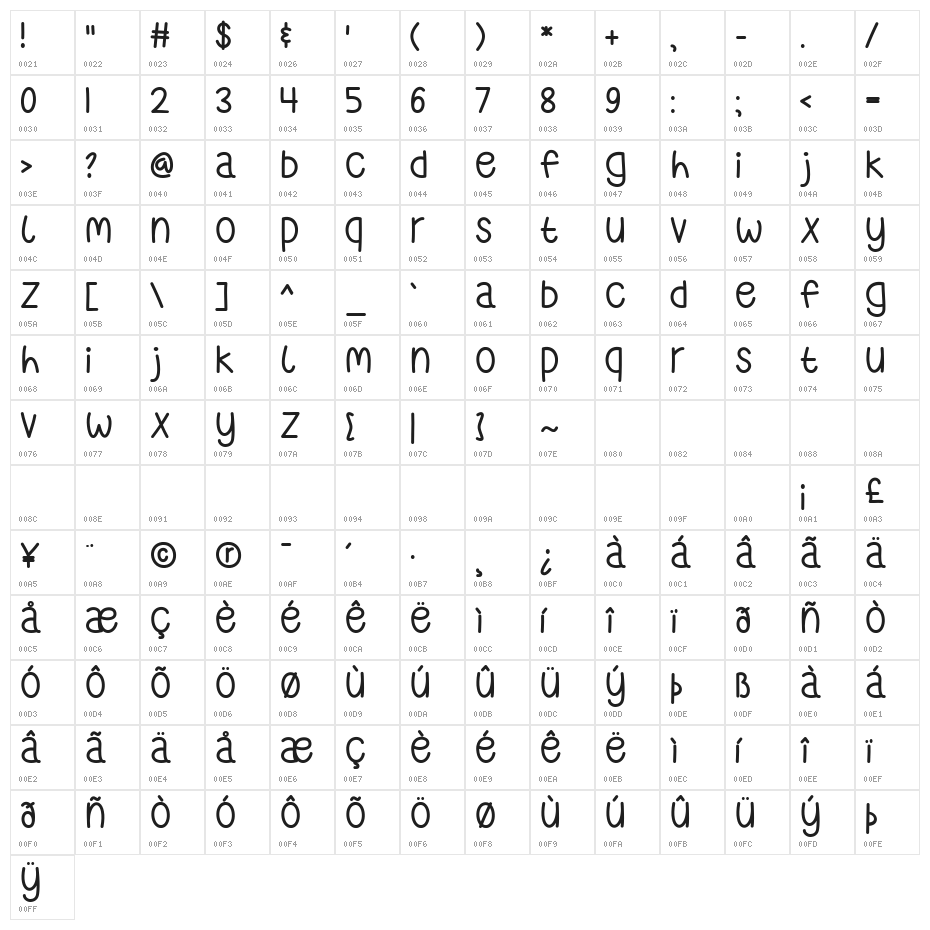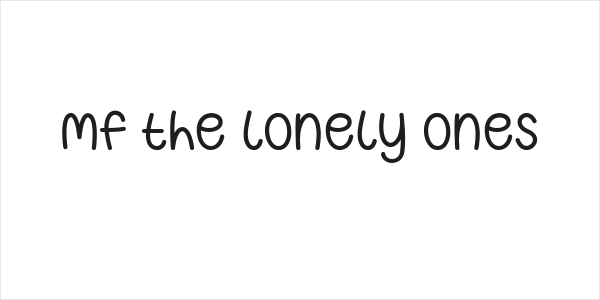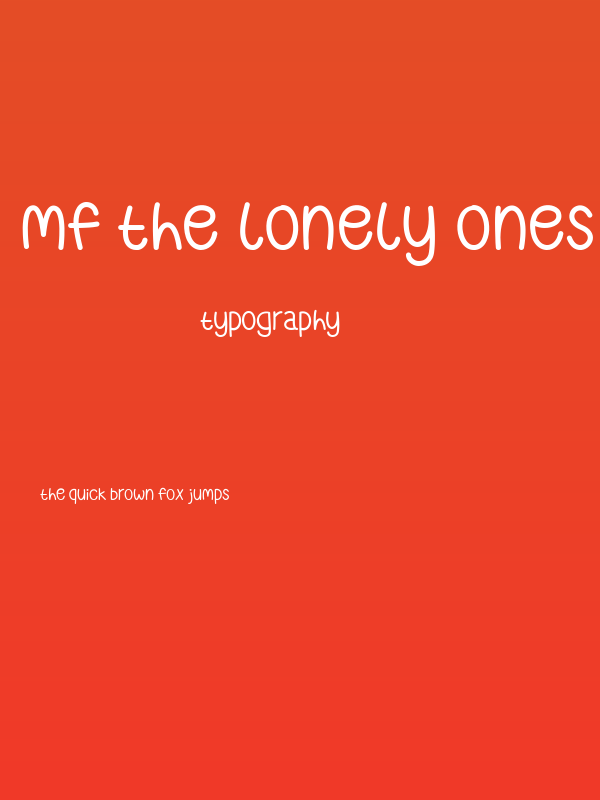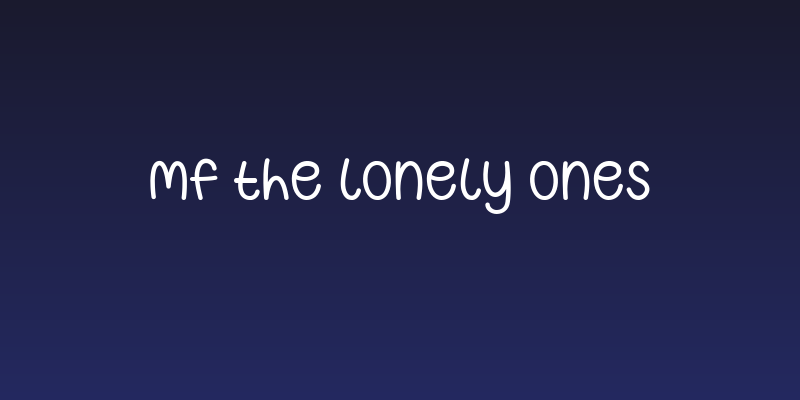
Mf The Lonely Ones Font
Mf The Lonely Ones Description
This playful and whimsical font features rounded, smooth edges and a hand-drawn aesthetic that gives it a friendly and approachable feel. The characters are evenly spaced with a consistent stroke width, creating a harmonious and balanced look. The lowercase letters have a slightly larger x-height, enhancing readability, while the uppercase letters maintain a uniform height. The numbers and special characters are designed to match the overall style, ensuring a cohesive appearance across all text. This font is ideal for projects that require a casual and informal tone, such as children's books, greeting cards, or playful branding.